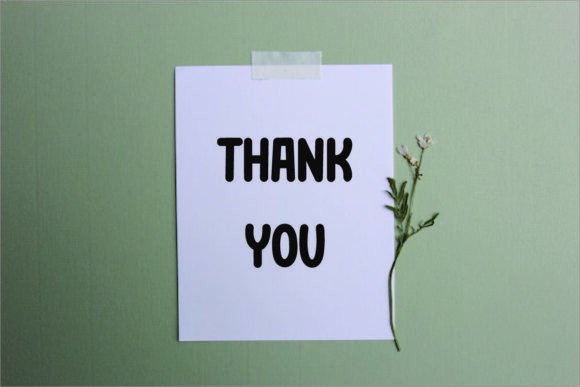
The Magic of Blackgold Font: Elevate Your Holiday Designs
It’s that time of the year again – the season for creating stunning holiday cards, festive decorations, and heartwarming Christmas messages. As designers, crafters, and creative hobbyists, we’re always on the lookout for the perfect font to add a personal touch to our projects. I still remember the year I spent hours searching for the ideal font for a client’s Christmas card campaign, only to stumble upon Blackgold Font – a fun, handwritten font with all caps letters that instantly captured the festive spirit. ✨
A Personal Review of Blackgold Font
So, what makes Blackgold Font so special? Let’s dive into the good stuff and a few quirks I’ve discovered while working with this font.
- 🎉 Festive and Fun: Blackgold Font is perfect for holiday-themed projects, adding a dash of fun and playfulness to your designs.
- ✅ Easy to Read: The all-caps letters ensure that your messages are clear and easy to read, even in smaller sizes.
- ✨ Versatile: This font can be used for a wide range of projects, from holiday cards and decorations to social media graphics and more.
While Blackgold Font is an excellent choice for many projects, there are a few things to keep in mind:
- 🤔 Limited Character Set: As a handwritten font, Blackgold may not have an extensive character set, which could limit its use for certain projects.
- ⚠️ Not Suitable for Body Text: Due to its decorative nature, Blackgold Font is best used for headings or titles, rather than large blocks of body text.
The Story Behind Blackgold Font
Blackgold Font was created with the intention of capturing the magic of the holiday season. Its designer aimed to craft a font that would add a personal touch to holiday cards, decorations, and messages. With its fun, handwritten style and all-caps letters, Blackgold Font has become a go-to choice for designers and crafters looking to add a festive flair to their projects.
Q: What type of projects is Blackgold Font best suited for?
A: Blackgold Font is perfect for holiday-themed projects, such as Christmas cards, decorations, and festive messages.
Q: Is Blackgold Font available in different styles or weights?
A: Blackgold Font is primarily available in a single style, but its versatility and character set make it suitable for a wide range of design applications.